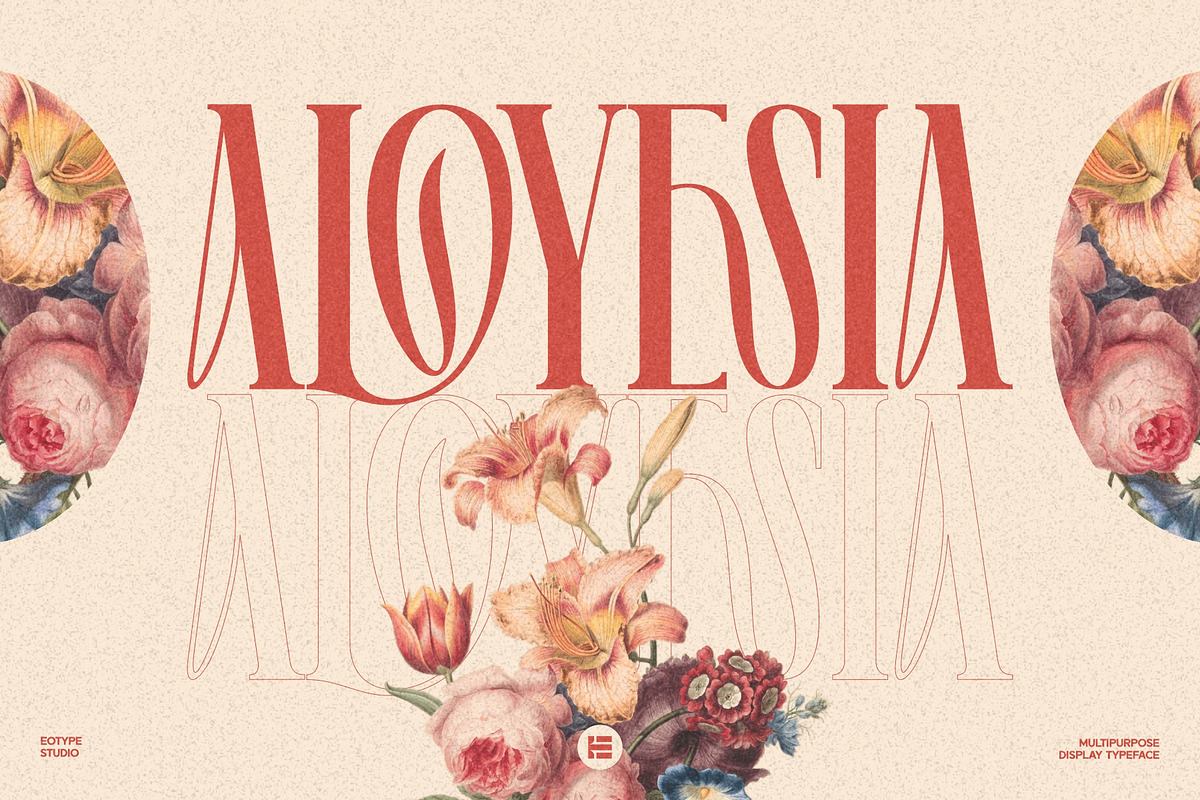
Aloyesia Font Free Download is an elegant and modern serif typeface designed to bring sophistication and style to your designs. Perfect for branding, logos, invitations, and more, Aloyesia offers clean lines and refined details that make it an ideal choice for high-end projects. Its versatile nature allows it to work seamlessly across both digital and print media, ensuring a polished, professional look.